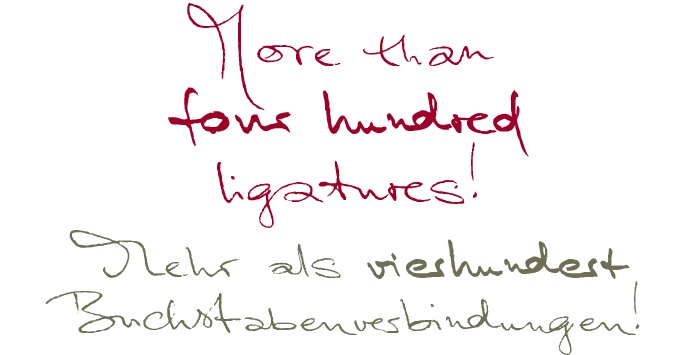
Marleen Script Font
Marleen Script Font is perfect for elegant wedding invitations, luxury brand logos, high-end fashion labels, premium beauty product packaging, sophisticated greeting cards, upscale boutique signage, romantic stationery designs, exclusive event materials, refined social media graphics, and premium lifestyle branding. This graceful script typeface excels in applications where elegance, sophistication, and timeless beauty are essential design elements.
Marleen Script Font is exciting because it embodies the perfect balance of contemporary elegance and classic calligraphy traditions through its flowing letterforms and refined flourishes. Its sophisticated curves feature graceful ascenders, delicate connections, and organic rhythm that create a sense of effortless luxury and personal refinement. The font's handcrafted appearance delivers authentic elegance while maintaining professional readability across various applications from intimate invitations to large-scale branding materials.
The Marleen Script Font family includes Regular, Bold, and Light weights, plus an extensive collection of stylistic alternates, swashes, and decorative elements that enhance its elegant character. The family features over 250 stylistic alternates, contextual ligatures, beginning and ending swashes, and ornamental flourishes that allow for truly personalized typography. Multiple language support ensures versatility for international luxury brands and global premium applications.
This premium script represents the pinnacle of contemporary calligraphy design and luxury typography. Marleen Script Font Free Download enables designers to experience its sophisticated character before purchase. The font includes carefully crafted OpenType features, advanced kerning pairs, and contextual alternates that maintain natural handwritten flow while ensuring professional typography standards for high-end commercial applications.
Professional designers choose Marleen Script Font for its ability to convey luxury, sophistication, and exclusive appeal in premium brand communications. The font's elegant personality works magnificently in both large display applications and intimate text settings where personal touch is paramount. Its versatile nature makes it suitable for luxury hospitality, premium fashion, and exclusive lifestyle brands seeking authentic elegance.
The timeless elegance of Marleen Script Font elevates brand communications with its sophisticated grace and refined beauty. Its authentic handcrafted appearance speaks to discerning audiences seeking premium experiences and exclusive quality while maintaining the professional standards required for luxury brand applications.
Discover the sophisticated elegance of Marleen Script Font and experience why luxury brands and high-end designers worldwide choose this exceptional typeface for their most refined and memorable design communications.